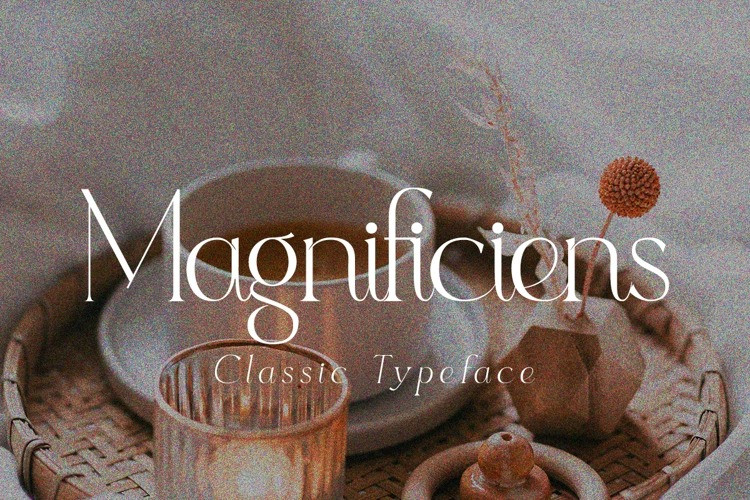
Magnificiens Font
Magnificiens Serif Font, It can easily be matched to an incredibly large set of projects, so add it to your creative ideas and notice how it makes them stand out!